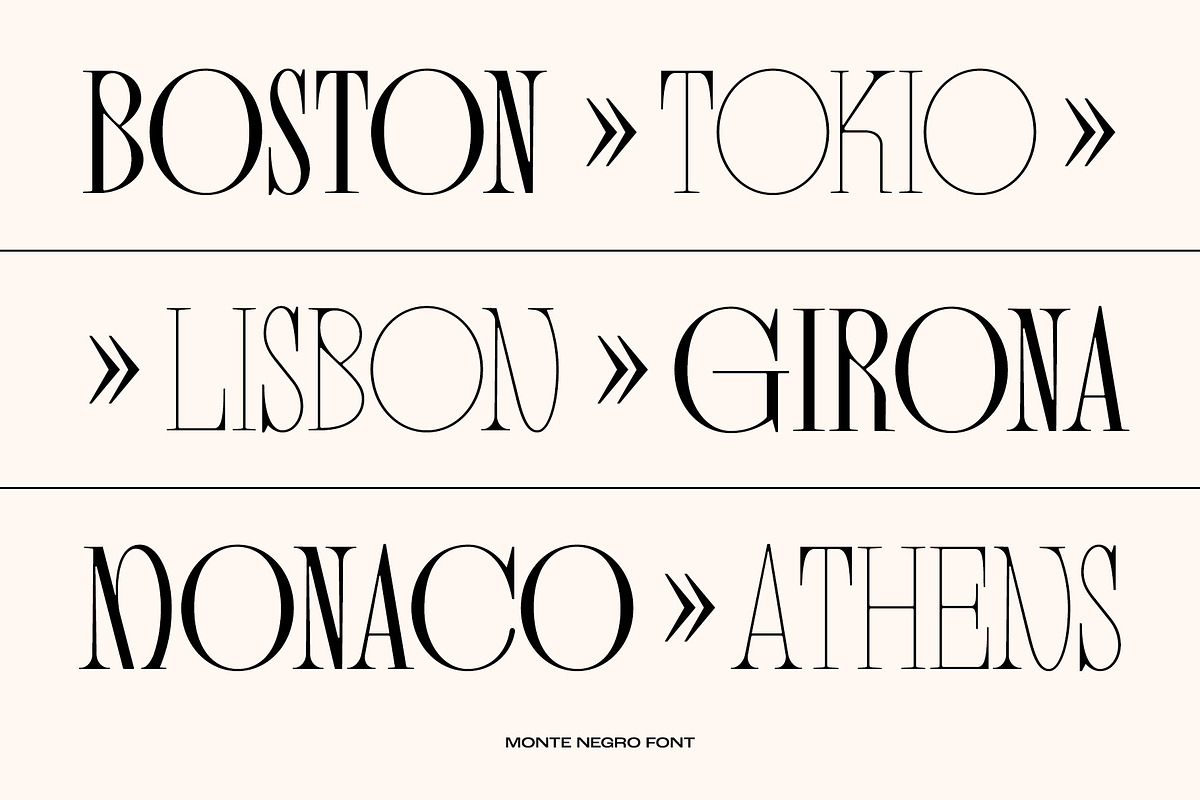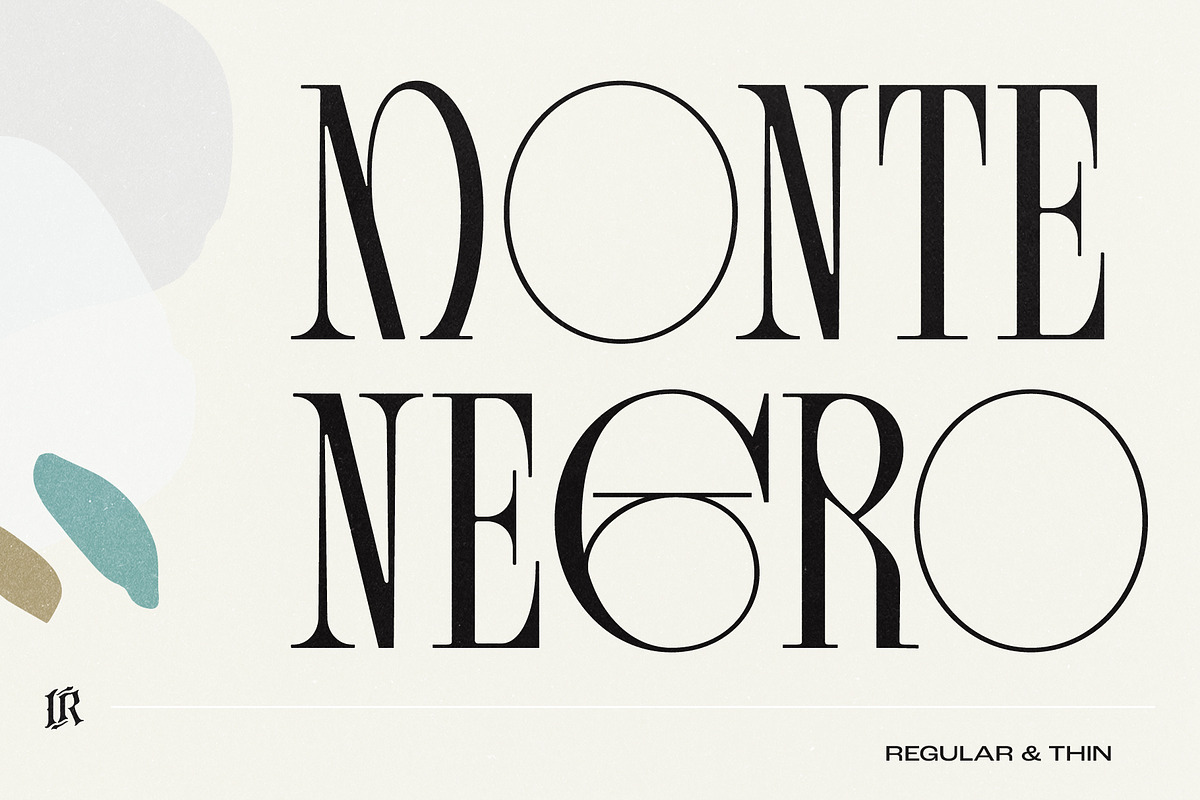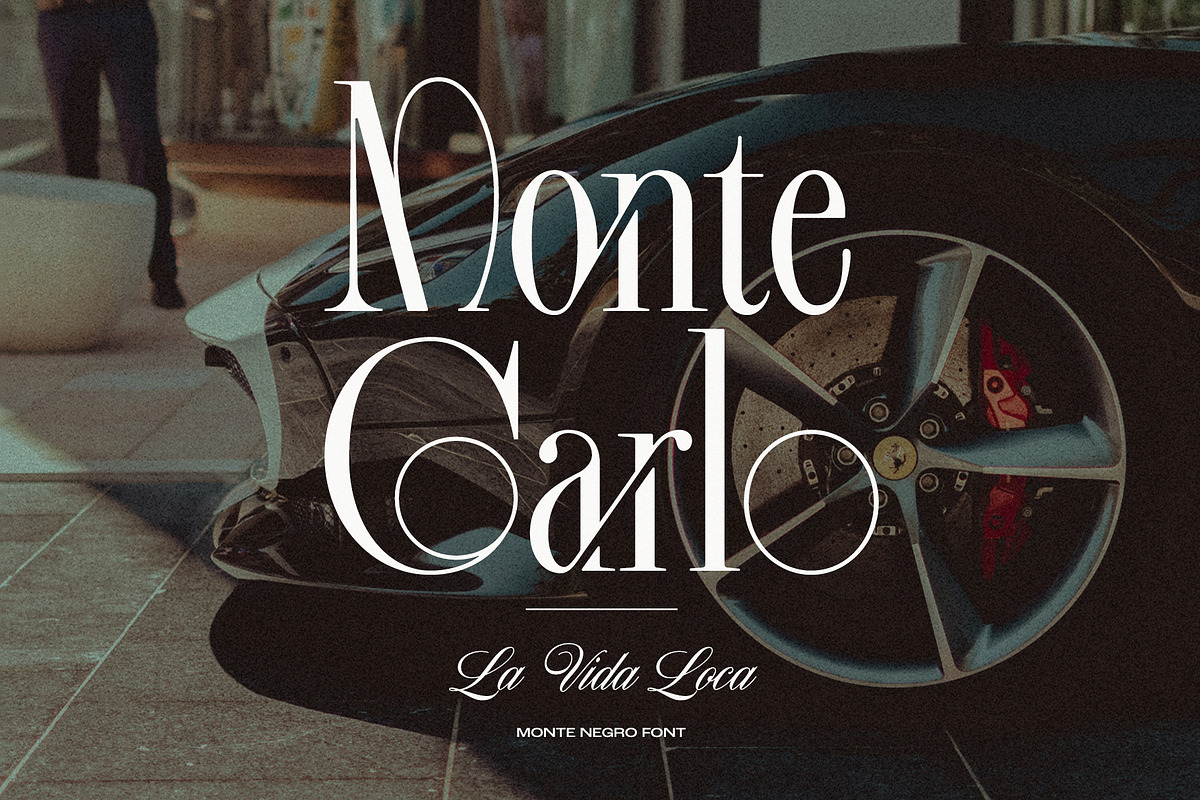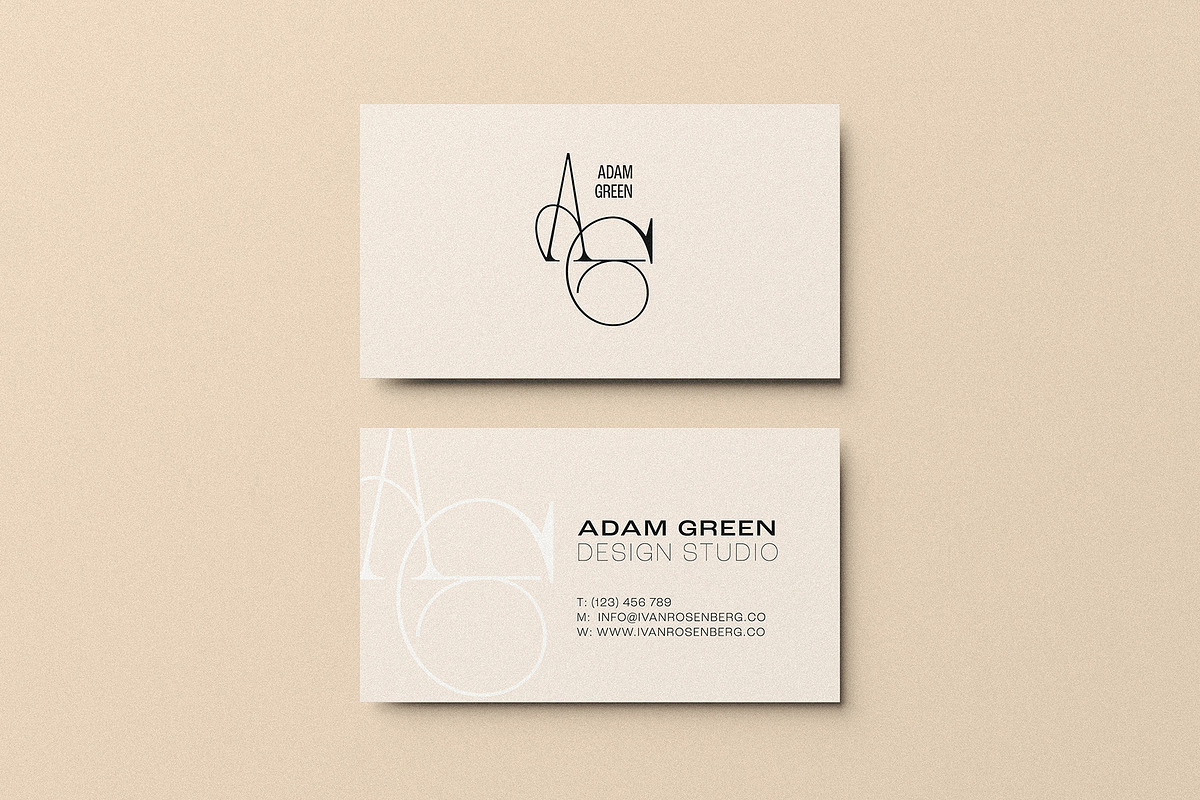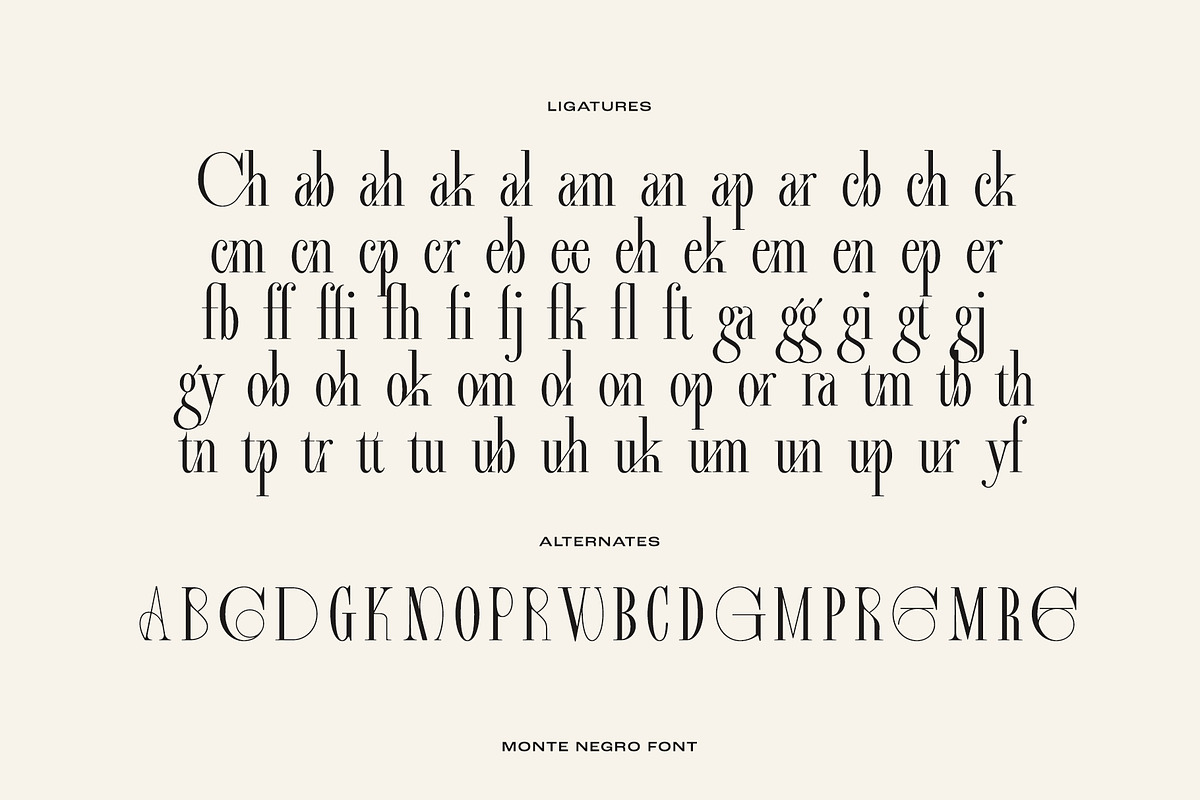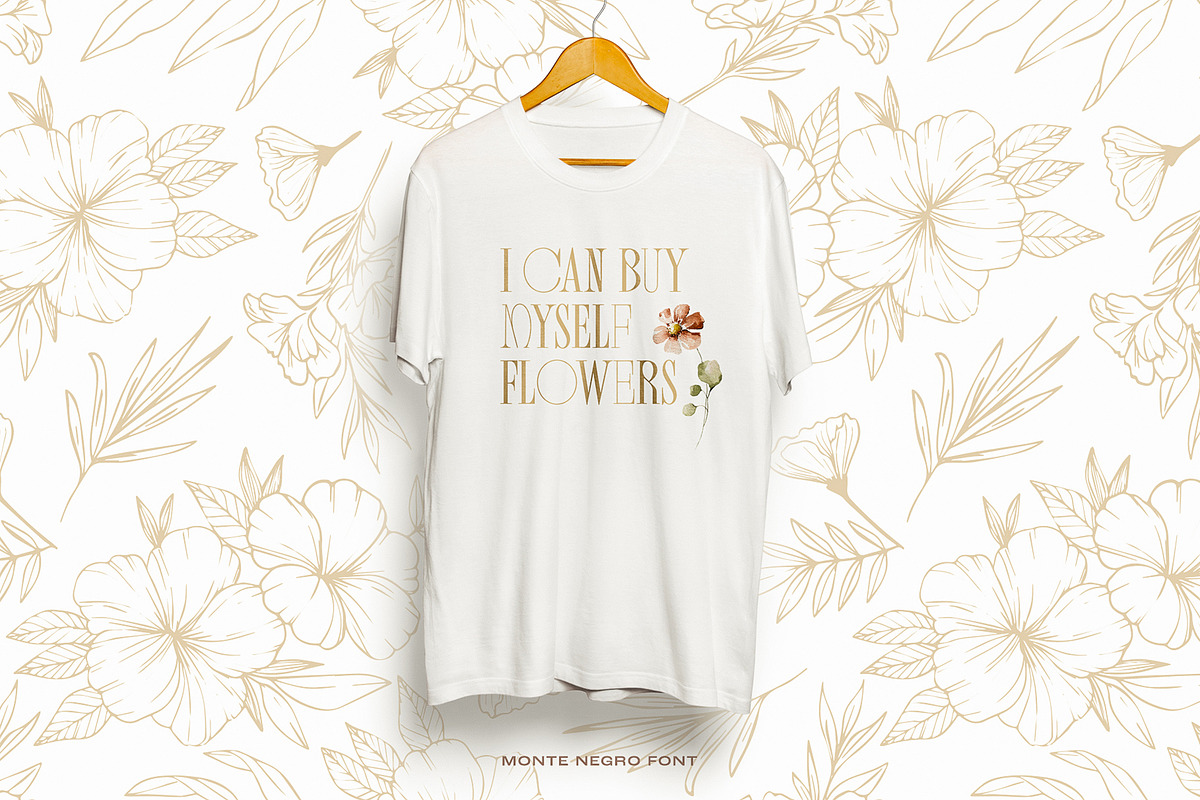
Monte Negro | Display Serif
Monte Negro is a luxury, condensed display serif font that is perfect for branding projects, invitations, headlines etc.
Monte Negro comes with 64 ligatures and 33 alternate glyphs.